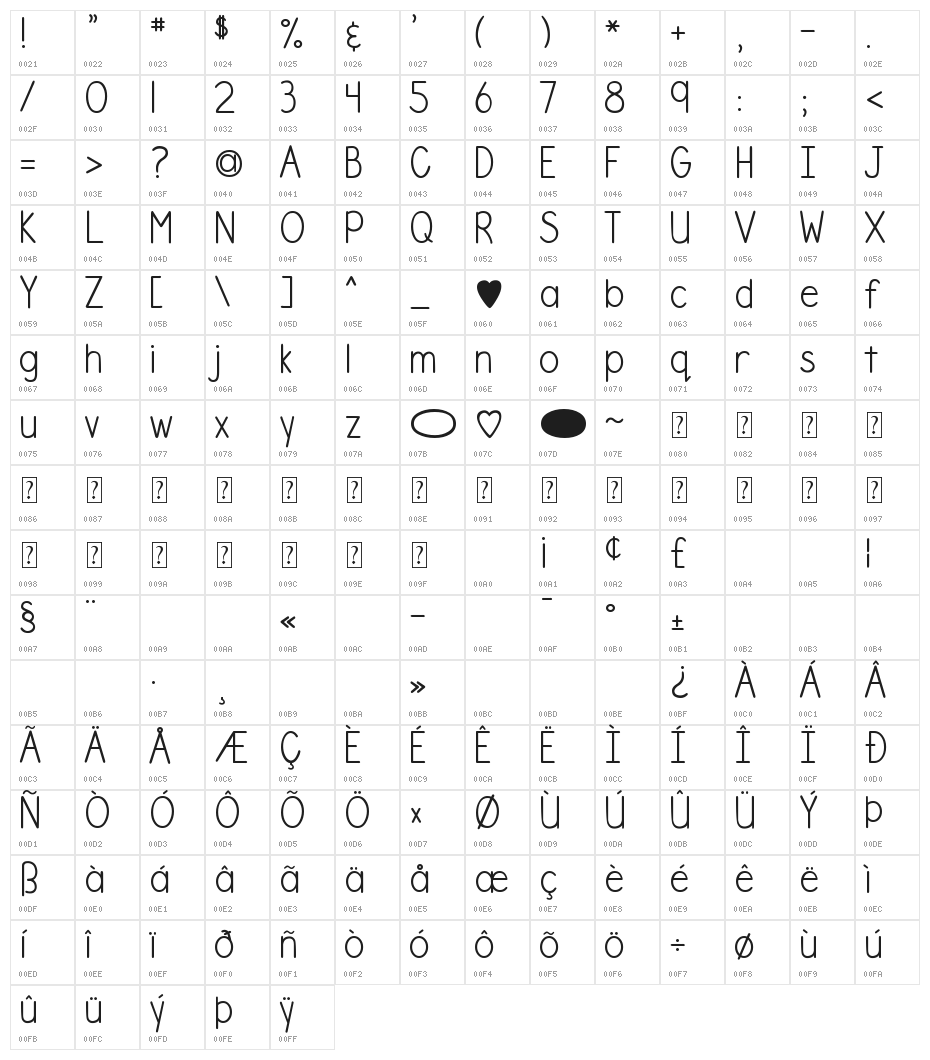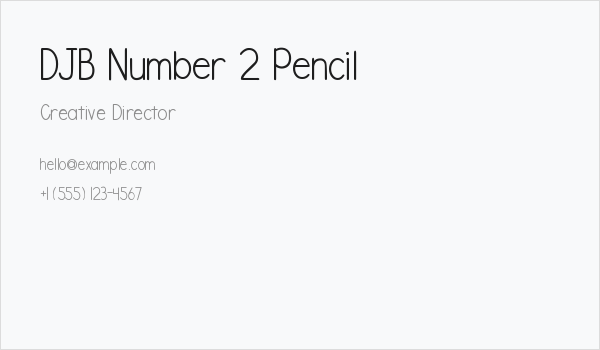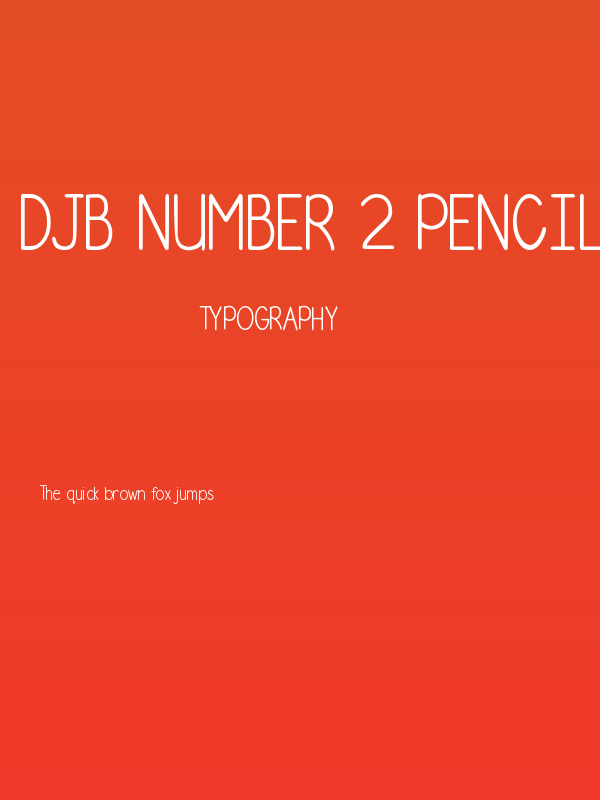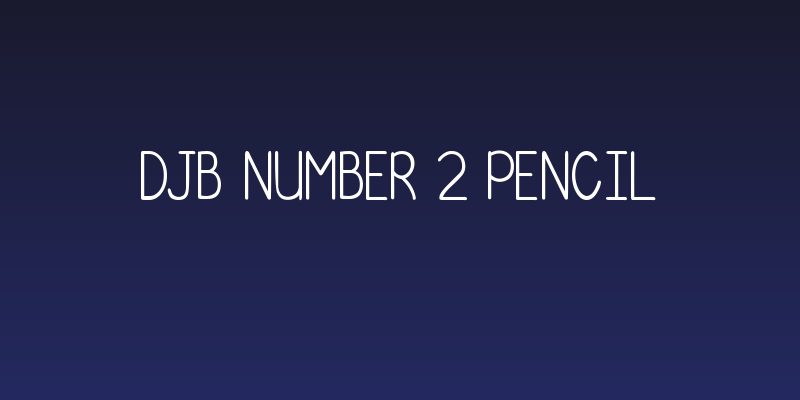
DJB Number 2 Pencil Font
DJB Number 2 Pencil Description
This font features a playful and casual handwritten style, reminiscent of writing with a pencil. The characters are rounded and slightly irregular, giving them a friendly and approachable appearance. The uppercase and lowercase letters maintain a consistent height, contributing to a uniform look. The numerals are clear and easy to read, while the special characters blend seamlessly with the overall style. This font is perfect for projects that require a personal touch, such as invitations, greeting cards, or educational materials. Its simplicity and charm make it versatile for various design needs.
| Use Case | Headlines, Informal text, Educational materials |
| Proposed Projects | Ideal for invitations, greeting cards, educational materials, and any project needing a personal touch. |